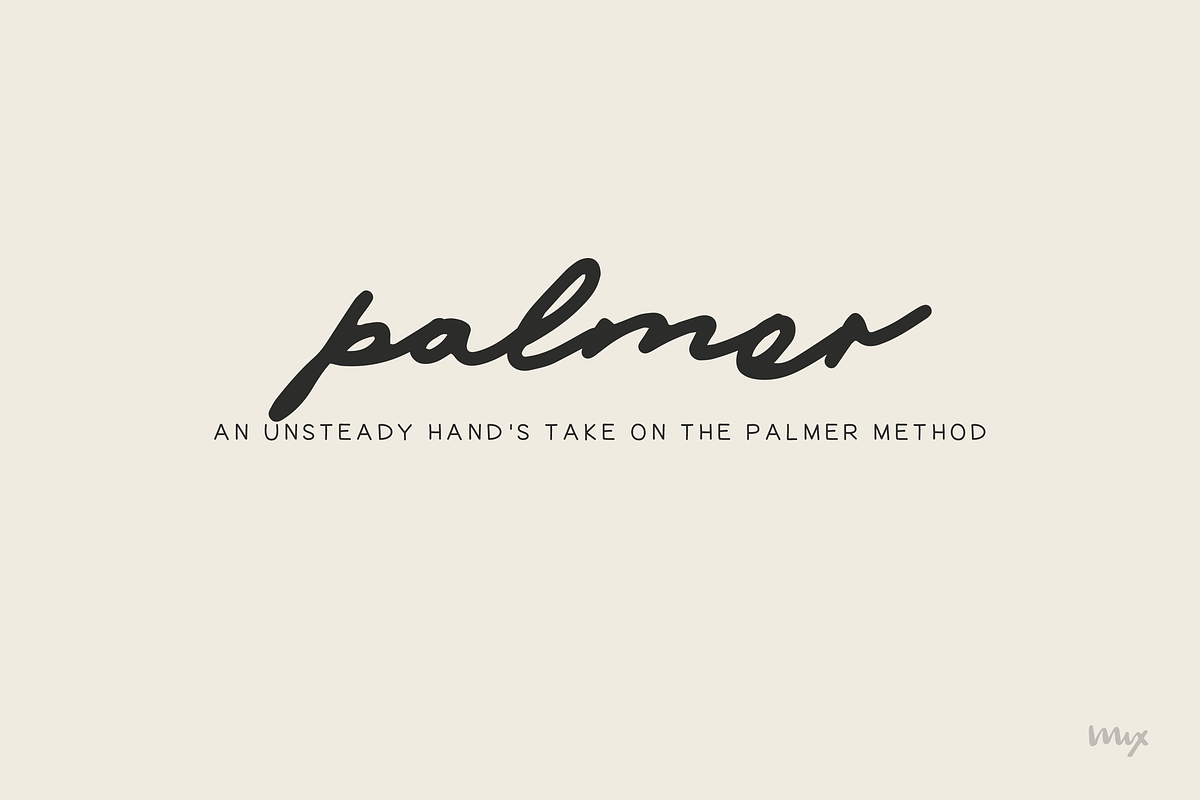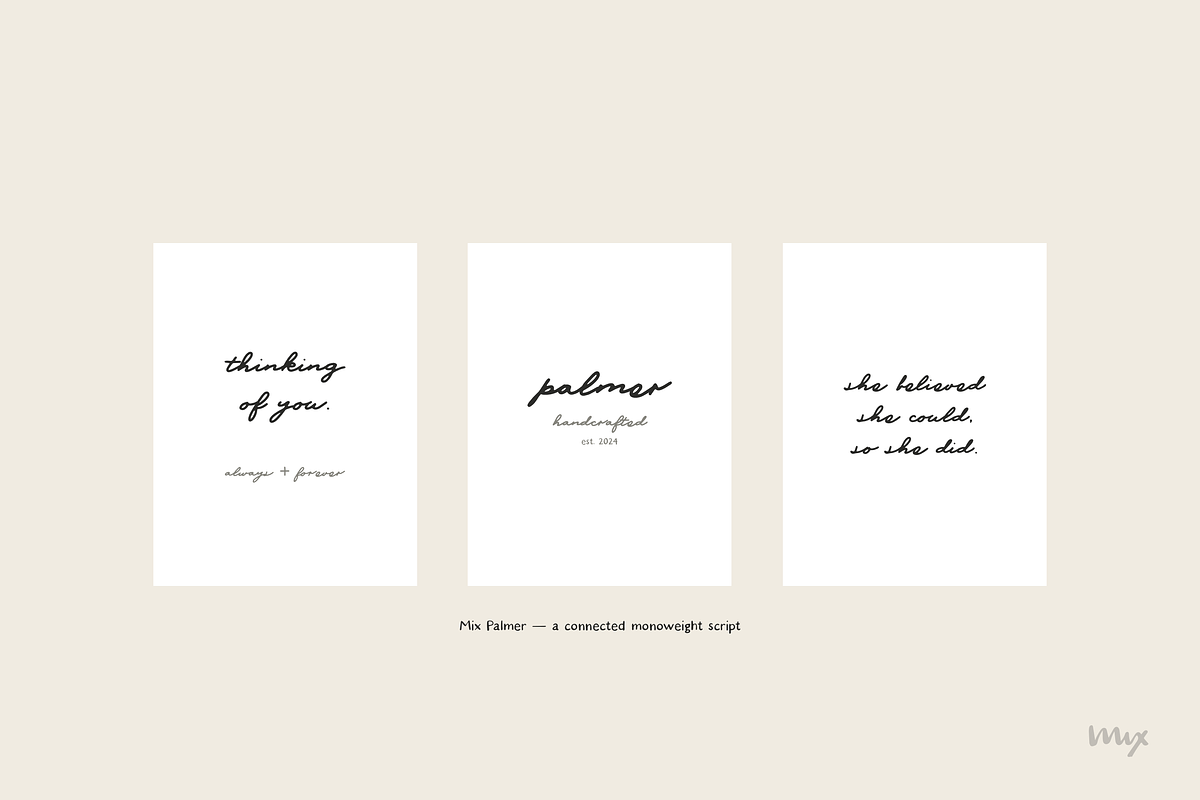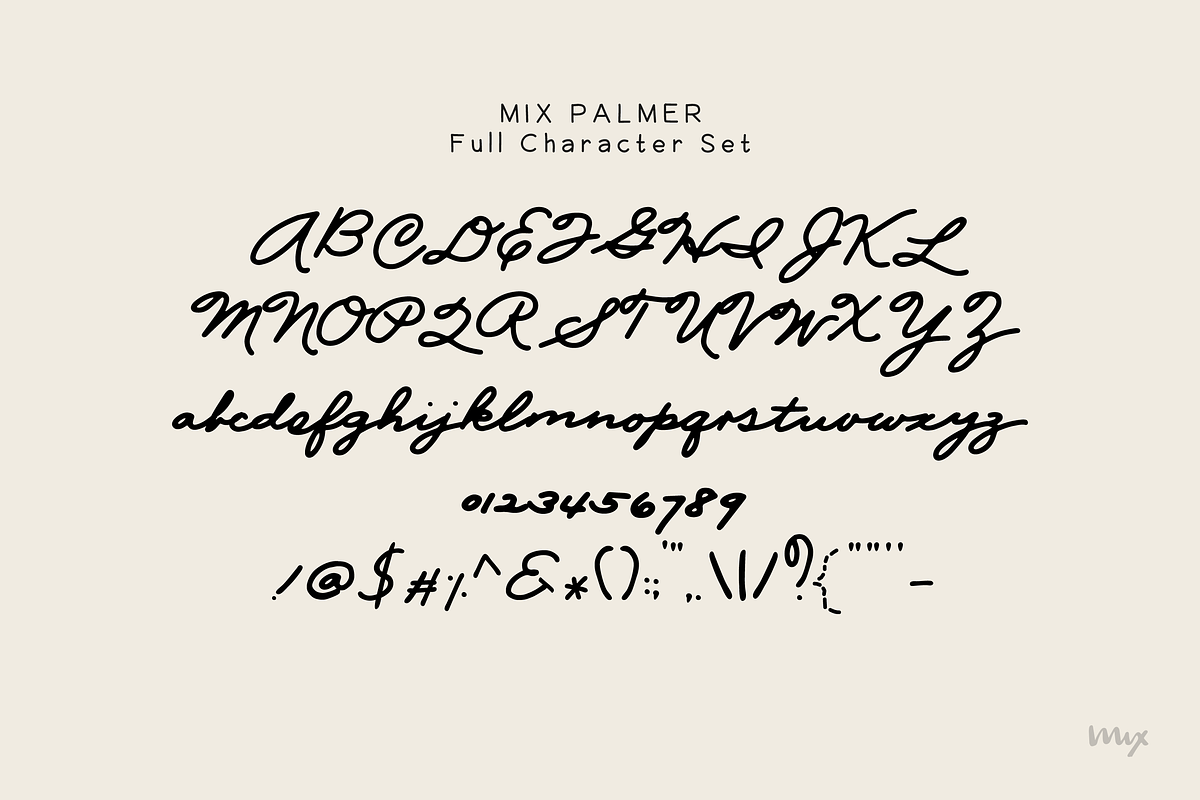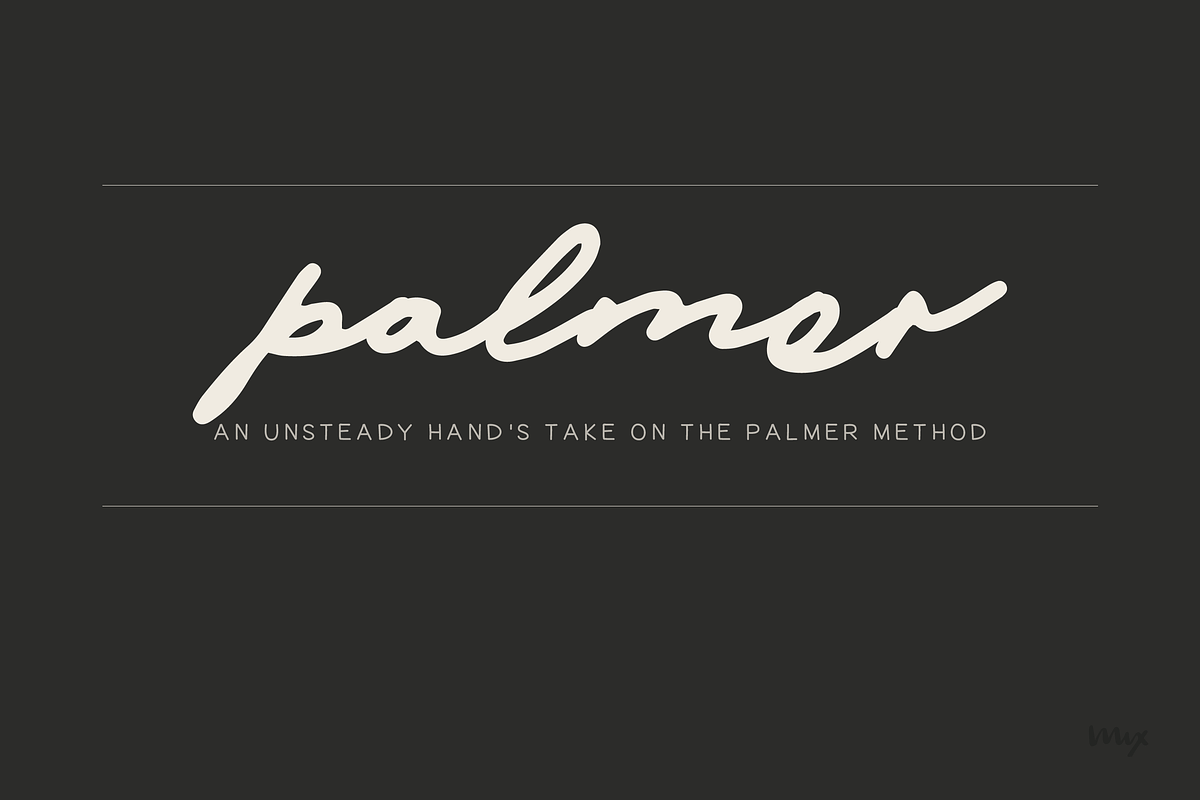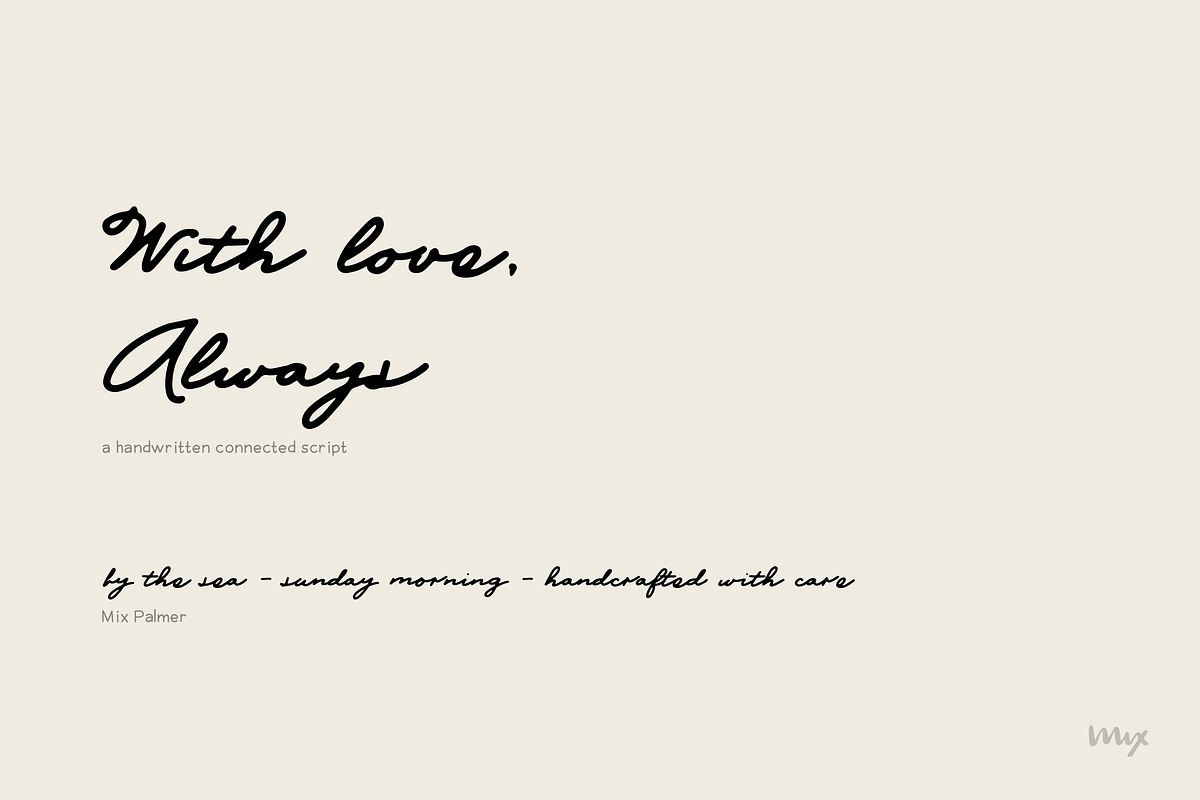
Palmer is a connected monoweight script rooted in the Palmer method of handwriting -- one of the most influential penmanship systems ever taught. Unsteady, authentic, and unmistakably human, it brings the warmth of a real hand to any design.
- Wedding invitations and stationery - Greeting cards and gift tags - Small business branding and product labels - Packaging and artisan product design - Quotes, posters, and editorial layouts - Journaling and personal projects - Social media graphics and Canva templates
Mix Palmer -- a connected monoweight handwritten script with full upper and lowercase, numbers, punctuation, and multilingual character support. Provided as OTF and TTF files, compatible with Mac and Windows.